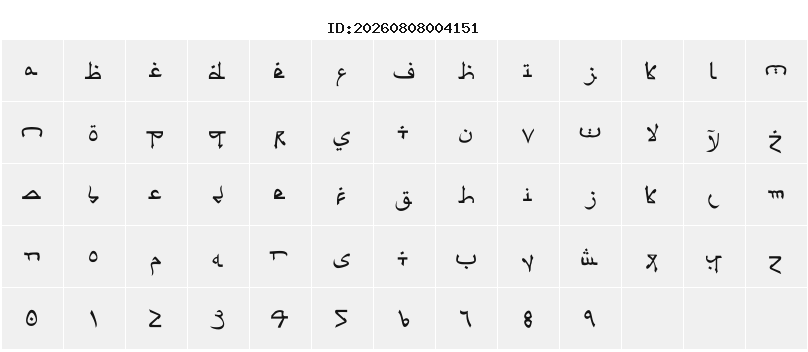
About Psuedo Saudi.ttf
Psuedo Saudi.ttf is a modern, elegant sans-serif font designed for ultimate readability and visual harmony. Perfect for branding, headlines, web design, and print materials.